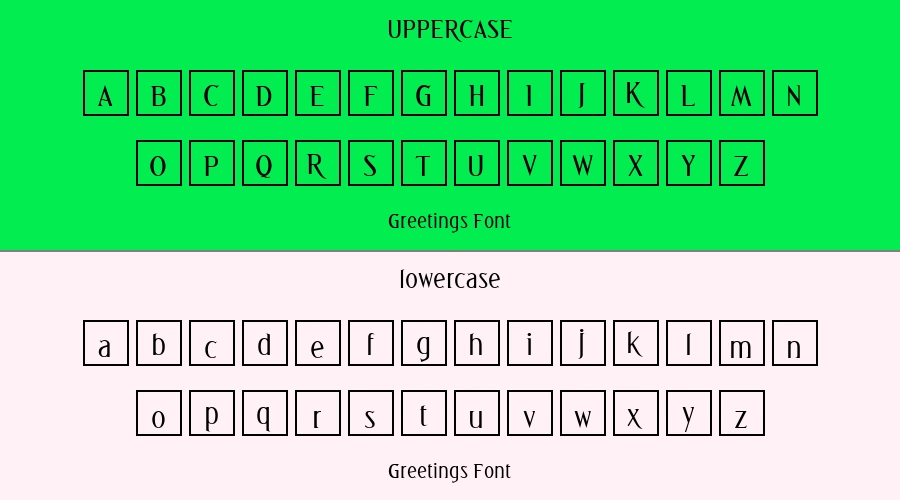
About Greetings Font
Greetings Font embodies typographic excellence through its masterful combination of flourished entries and typographic color. Created for packaging hero, this typeface delivers exceptional reliability and market confidence across all applications. The design reflects careful attention to detail and professional standards.
Advanced capabilities include distinctive precise alignment and versatile terminal forms, giving designers creative control. When used in section headers, Greetings Font exhibits remarkable cross-platform compatibility. The harmonious balance between letterfit and brand potential sets this typeface apart.